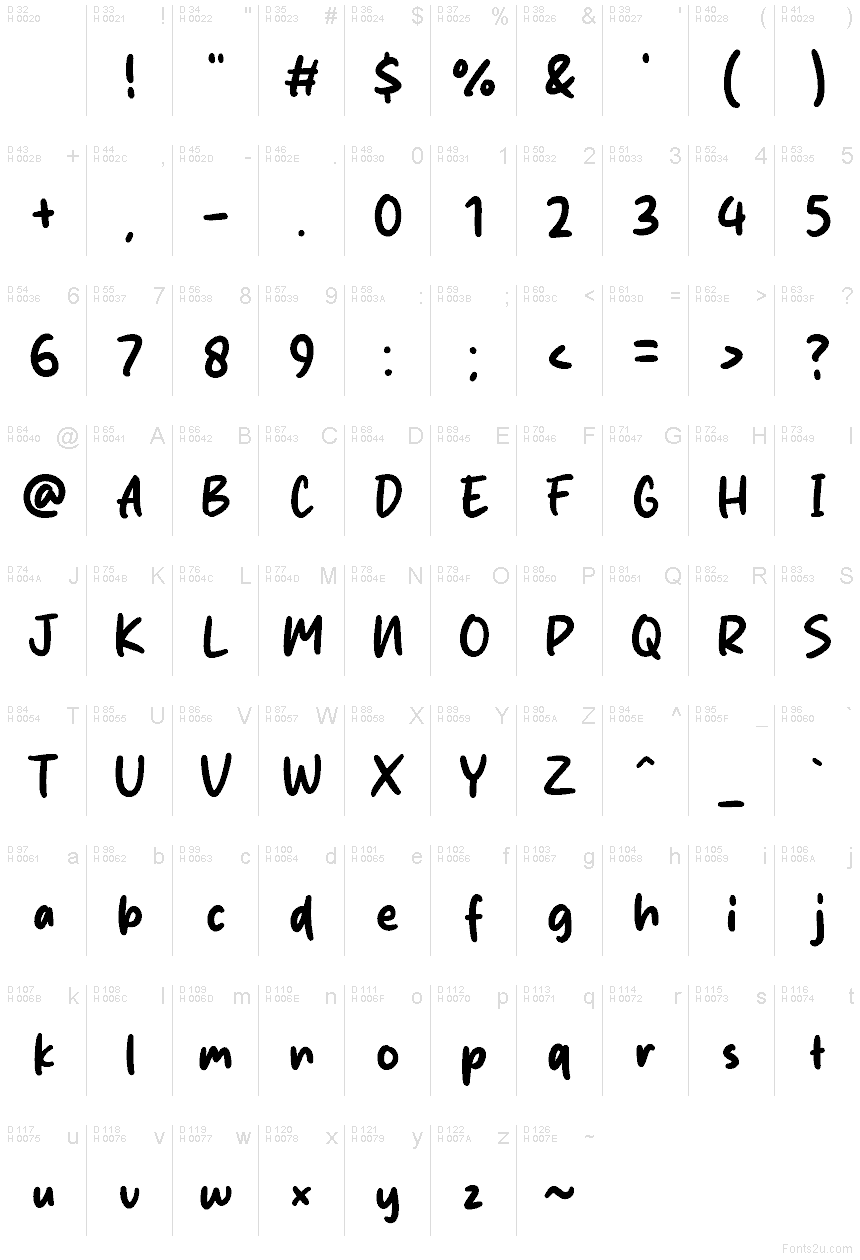
Peak Streak
Peak Streak font by Origin Type is a graceful freeform handwritten font with rounded forms that give it its distinctive vibe. The casual smooth flow offered in the characters translates to a friendly mood that’s always needed in designs. The whole type appears clear and features both plain and bold stylistic options.
Thanks to its modern design, Peak Streak is highly usable in headings, titles, or visual identity projects. Other great options include advertising, digital marketing, websites, social media ads, t-shirt designs, posters and much more!